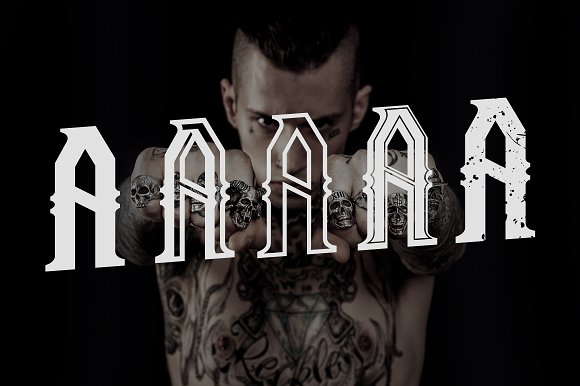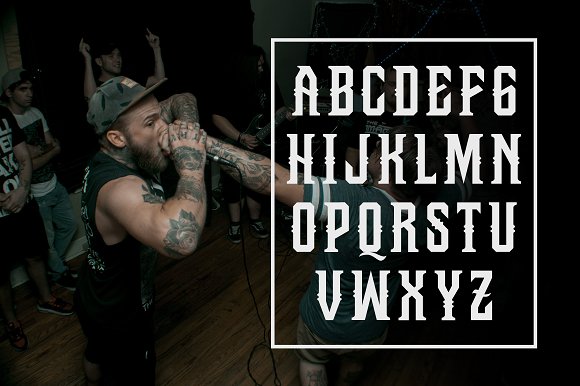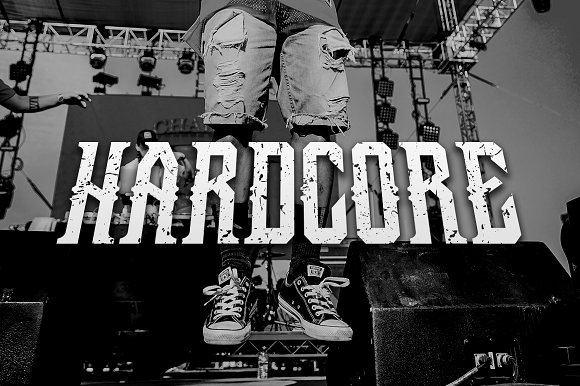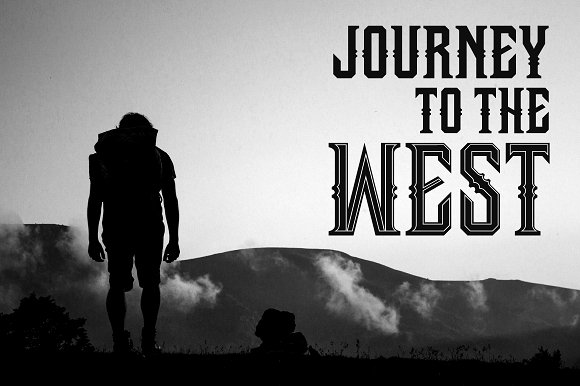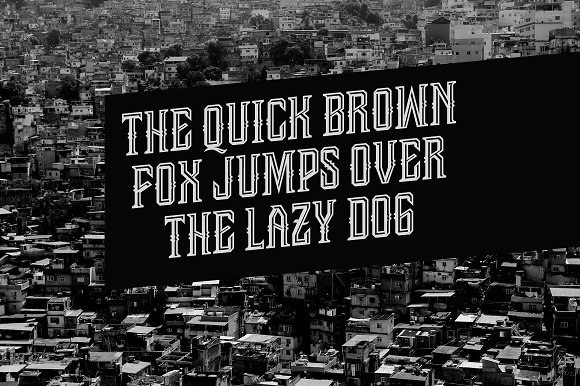
Bongoknian Font: A Unique Blend of Old-School and Slab Serif Flavors
In the world of typography, fonts play a crucial role in conveying messages, expressing emotions, and creating visual identities. For designers and crafters, finding the right font can make all the difference in bringing their creative projects to life. One such font that has been gaining attention in recent times is Bongoknian, an experimental font that combines old-school and slab serif flavors. In this article, we’ll dive into the world of Bongoknian Font, exploring its features, inspiration, and uses.
What is Bongoknian Font?
Bongoknian is an experimental font created with a unique blend of old-school and slab serif flavors. This distinctive font is designed to evoke a sense of nostalgia while also providing a modern twist. With its bold and chunky letterforms, Bongoknian Font is perfect for designers and crafters looking to add a touch of personality to their projects.
Inspiration Behind Bongoknian Font
The inspiration behind Bongoknian Font lies in its creator’s passion for typography and design. By combining old-school and slab serif elements, the font’s designer aimed to create a unique and eye-catching typeface that would stand out in the world of typography. The result is a font that is both nostalgic and modern, making it suitable for a wide range of design applications.
Features of Bongoknian Font
So, what makes Bongoknian Font so special? Here are some of its key features:
- Old-school flavor: Bongoknian Font has a distinctly retro feel, reminiscent of classic typography from the past.
- Slab serif elements: The font’s slab serif elements add a touch of modernity and sophistication.
- Bold and chunky letterforms: Bongoknian Font features bold and chunky letterforms that are perfect for headlines, titles, and other display text.
- Unique character set: The font includes a unique character set, making it suitable for a wide range of design applications.
Uses of Bongoknian Font
So, what can you use Bongoknian Font for? The possibilities are endless! Here are some ideas to get you started:
- Headlines and titles: Bongoknian Font is perfect for creating bold and eye-catching headlines and titles.
- Logos and branding: The font’s unique character set makes it suitable for creating logos and branding materials.
- Posters and flyers: Bongoknian Font is ideal for creating posters and flyers that require a bold and attention-grabbing typeface.
- Digital media: The font can also be used in digital media, such as social media graphics, video titles, and more.
Tips for Using Bongoknian Font
Here are some tips for using Bongoknian Font effectively:
- Use it sparingly: Bongoknian Font is a bold and attention-grabbing typeface, so use it sparingly to avoid overwhelming your design.
- Pair it with other fonts: Experiment with pairing Bongoknian Font with other fonts to create a unique and visually appealing typography.
- Adjust the size and color: Play around with the font size and color to create a design that is both balanced and harmonious.
In conclusion, Bongoknian Font is a unique and experimental typeface that combines old-school and slab serif flavors. With its bold and chunky letterforms, unique character set, and versatility, Bongoknian Font is perfect for designers and crafters looking to add a touch of personality to their projects. Whether you’re creating headlines, logos, posters, or digital media, Bongoknian Font is sure to make a statement.